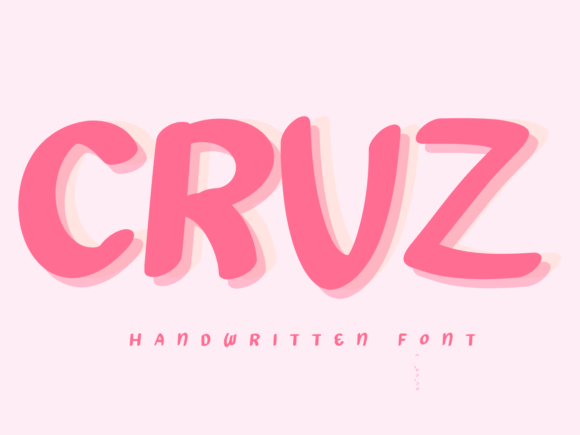
Introducing Cruz Font - A Beautiful Handwritten Wonder
In the realm of calligraphy, where elegance and charm intertwine, lies the captivating Cruz Font. This script font, crafted by the visionary Pukka De, is an enchanting dance of letters that will captivate your senses and transform your creative projects. With its sweet and friendly demeanor, Cruz Font is the perfect companion for those seeking a touch of whimsy and personalization.
Unleash Your Imagination with Versatile Cruz Font
Cruz Font's natural and unique style lends itself effortlessly to a myriad of design possibilities, making it the ultimate choice for expressing your individuality. Its charming curves and playful personality add a touch of enchantment to any project, whether it's greeting cards, invitations, logos, branding, or even text on hats. Let Cruz Font take you on a magical journey where creativity knows no bounds.
Experience the Magic of Cruz Font
Step into a world where words come alive and emotions find their voice. Cruz Font's captivating style is designed to evoke a sense of wonder and delight, leaving a lasting impression on your audience. Its flowing lines and intricate details create a visual masterpiece that speaks volumes without uttering a single word. With Cruz Font, you'll craft designs that resonate with your audience, creating an unforgettable connection that transcends the boundaries of language.
Make a Statement with Cruz Font
In a world saturated with uniformity, Cruz Font emerges as a beacon of originality. Its unique character and undeniable charm will make your designs stand out from the crowd. Whether you're creating social media graphics, website designs, or physical products, Cruz Font will elevate your work to new heights. Experience the joy of creating designs that captivate and inspire, leaving an indelible mark on the hearts and minds of your audience.
Embark on a Creative Adventure with Cruz Font
Cruz Font is more than just a font; it's an invitation to let your imagination soar. Its versatility and charm empower you to explore new creative horizons, transforming your ideas into tangible works of art. With Cruz Font as your muse, you'll discover hidden depths of creativity, pushing the boundaries of design and leaving a legacy of beauty and wonder.